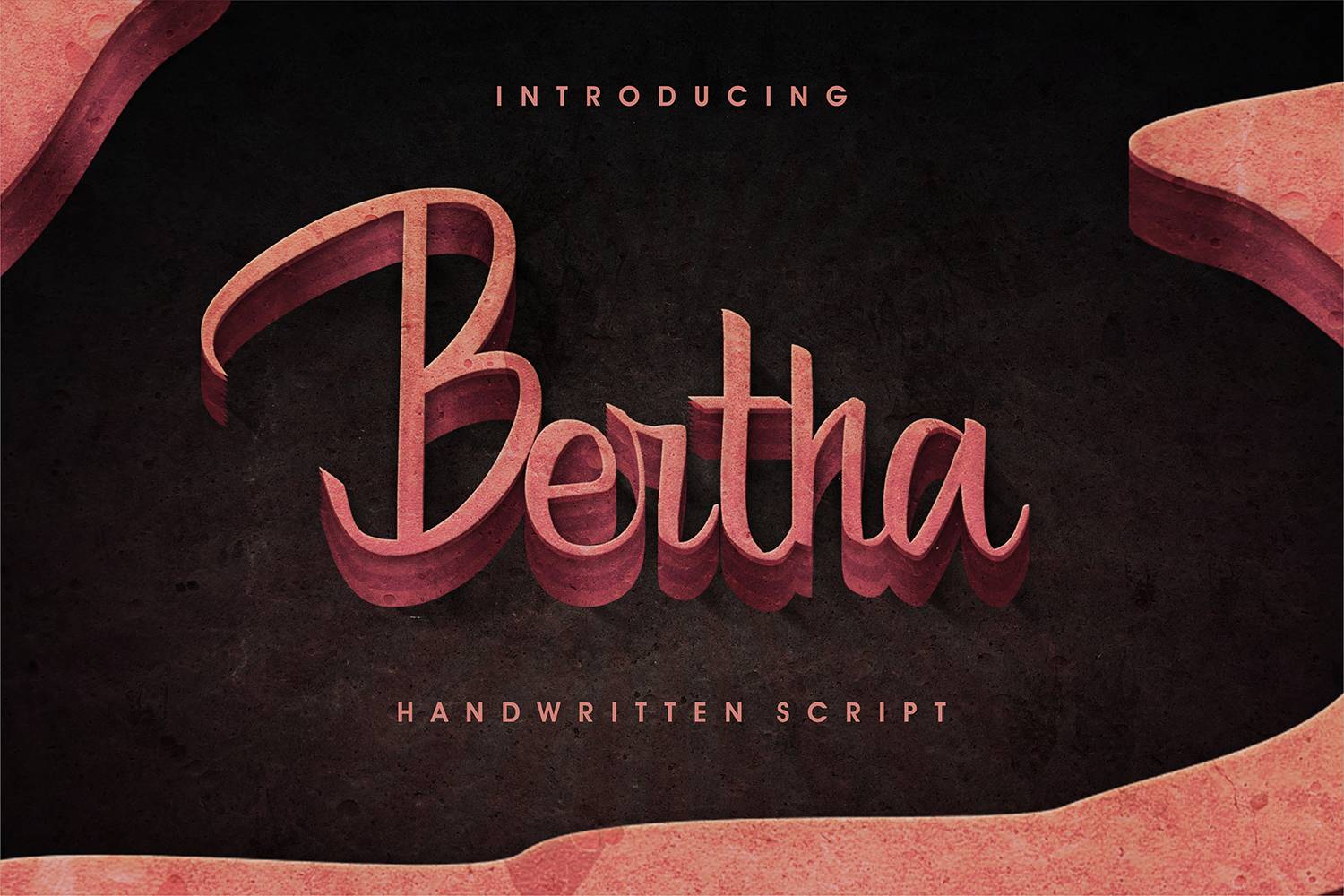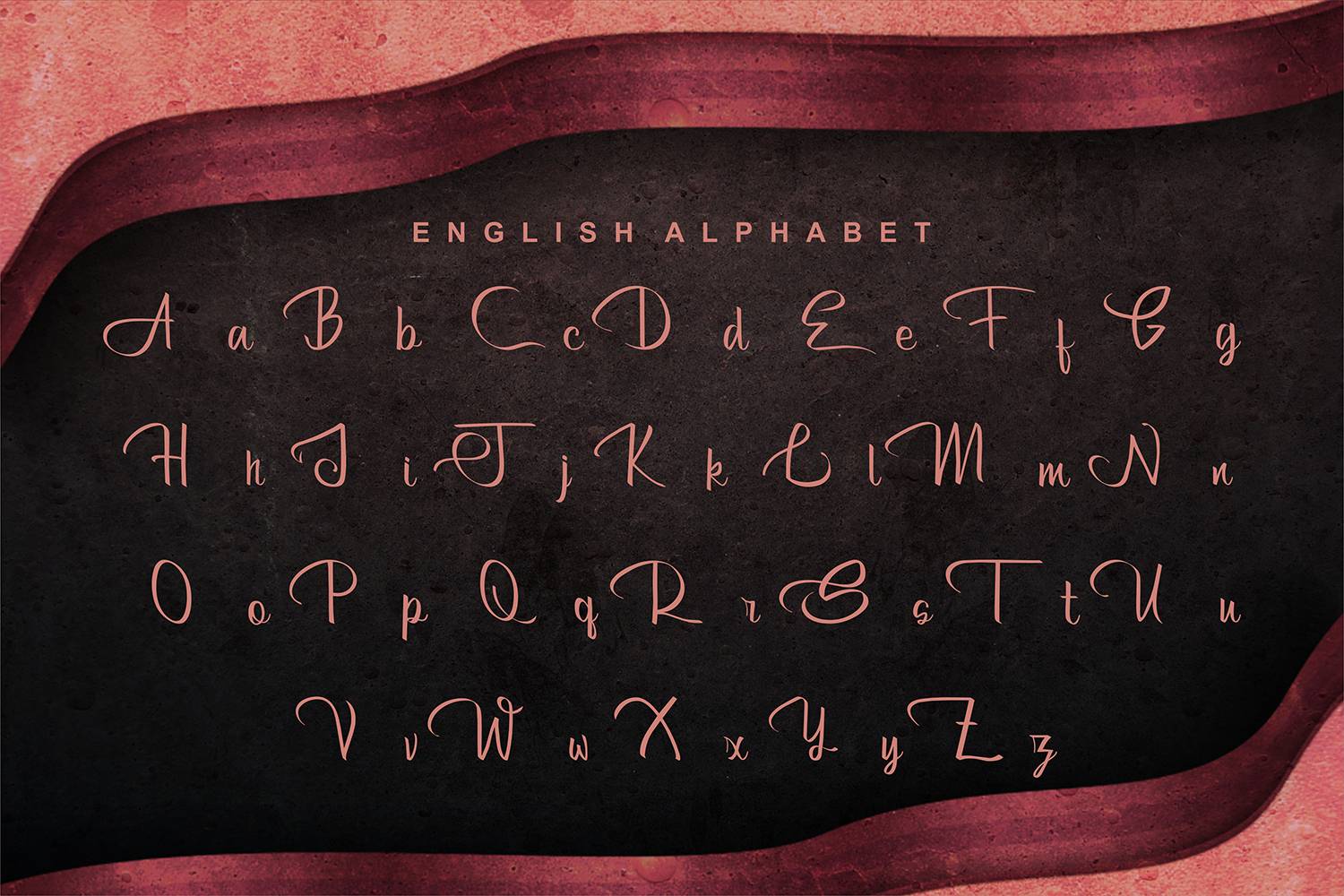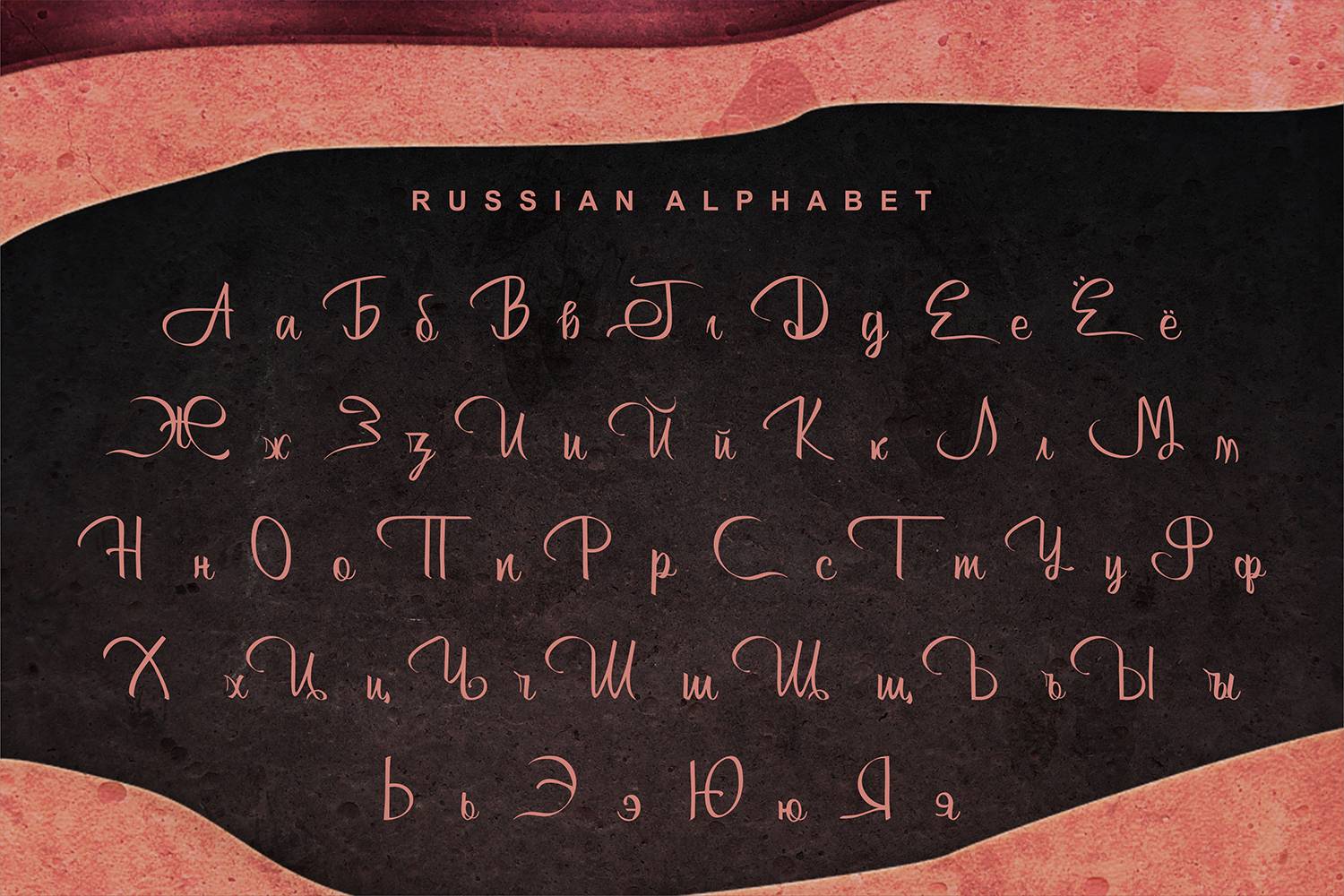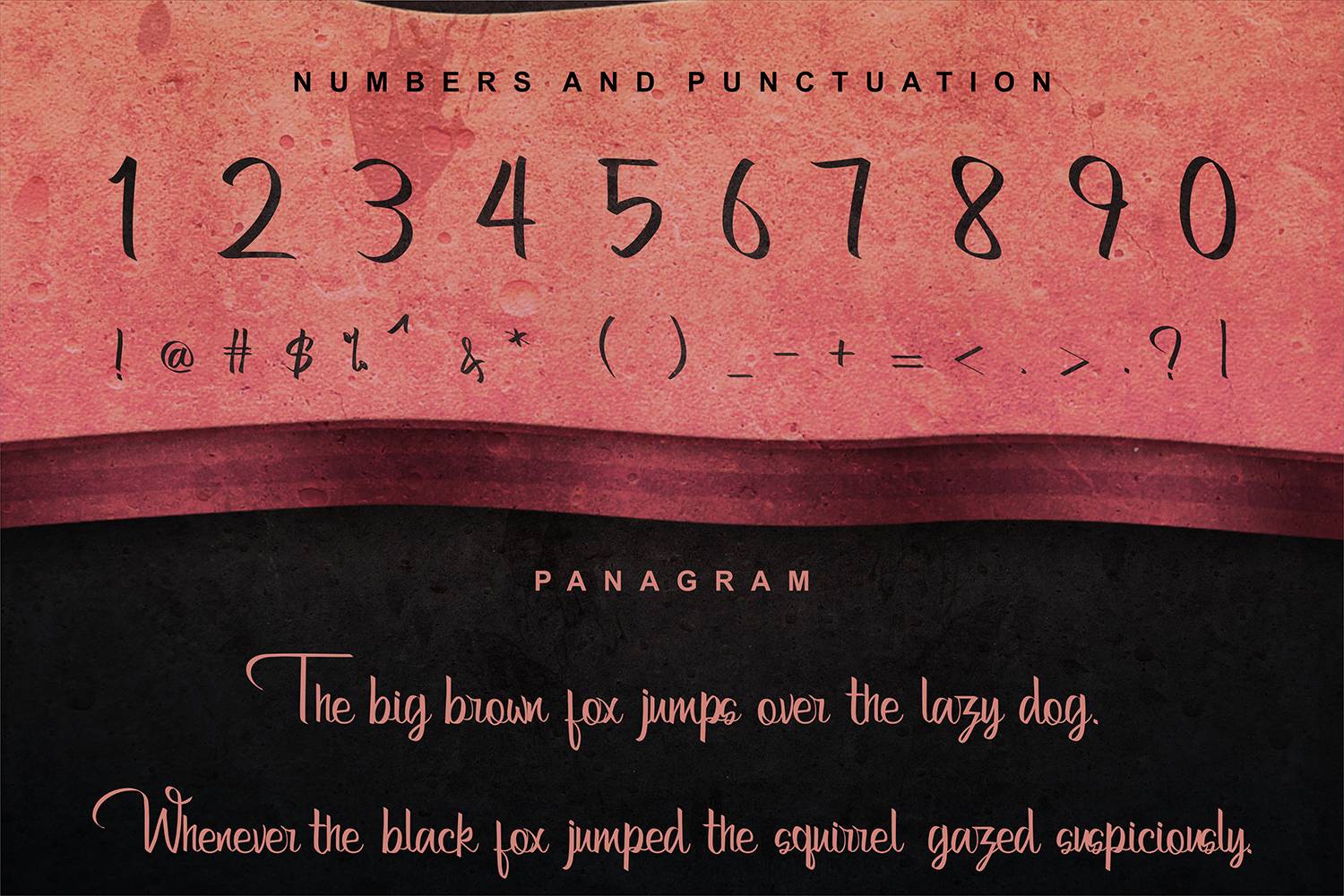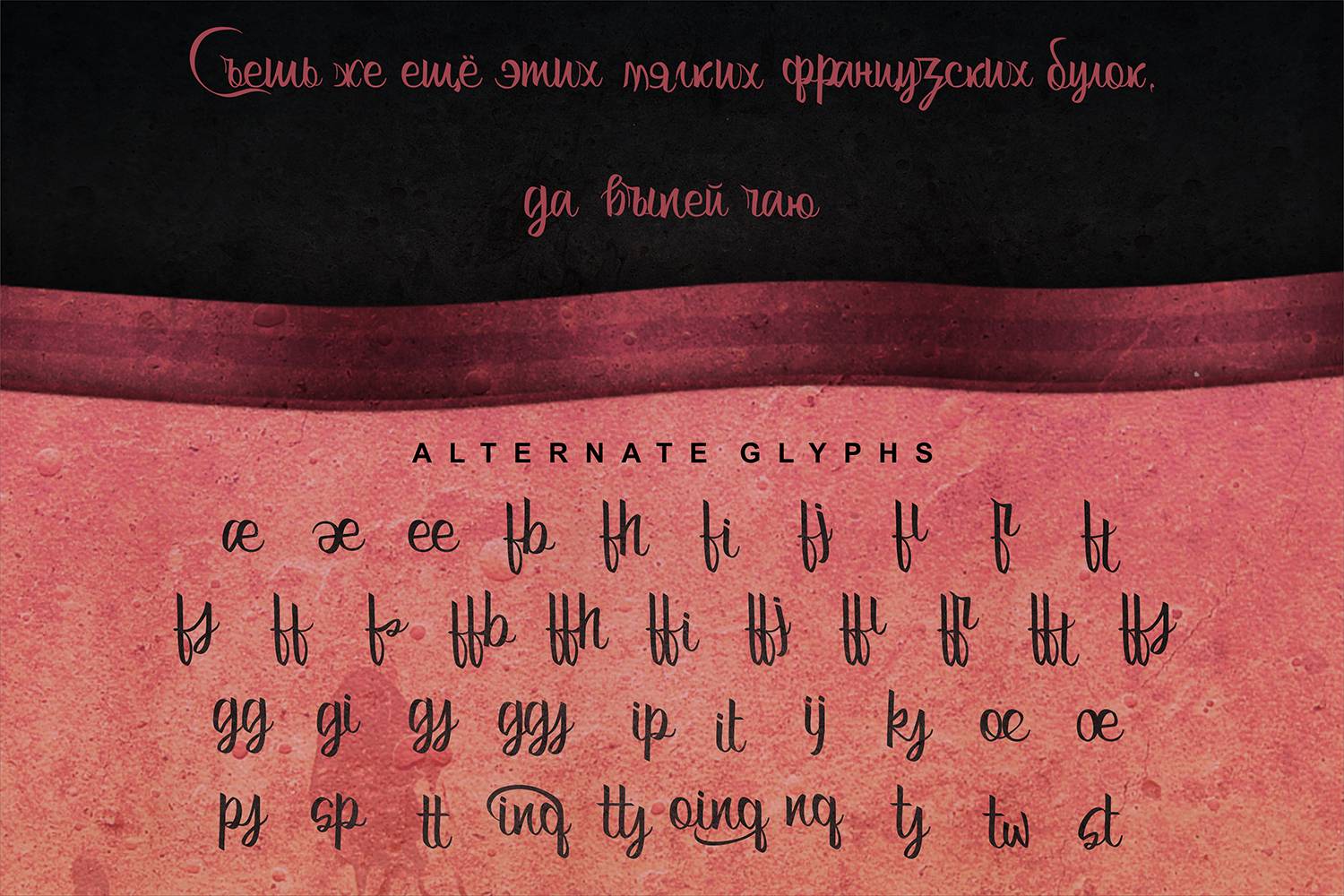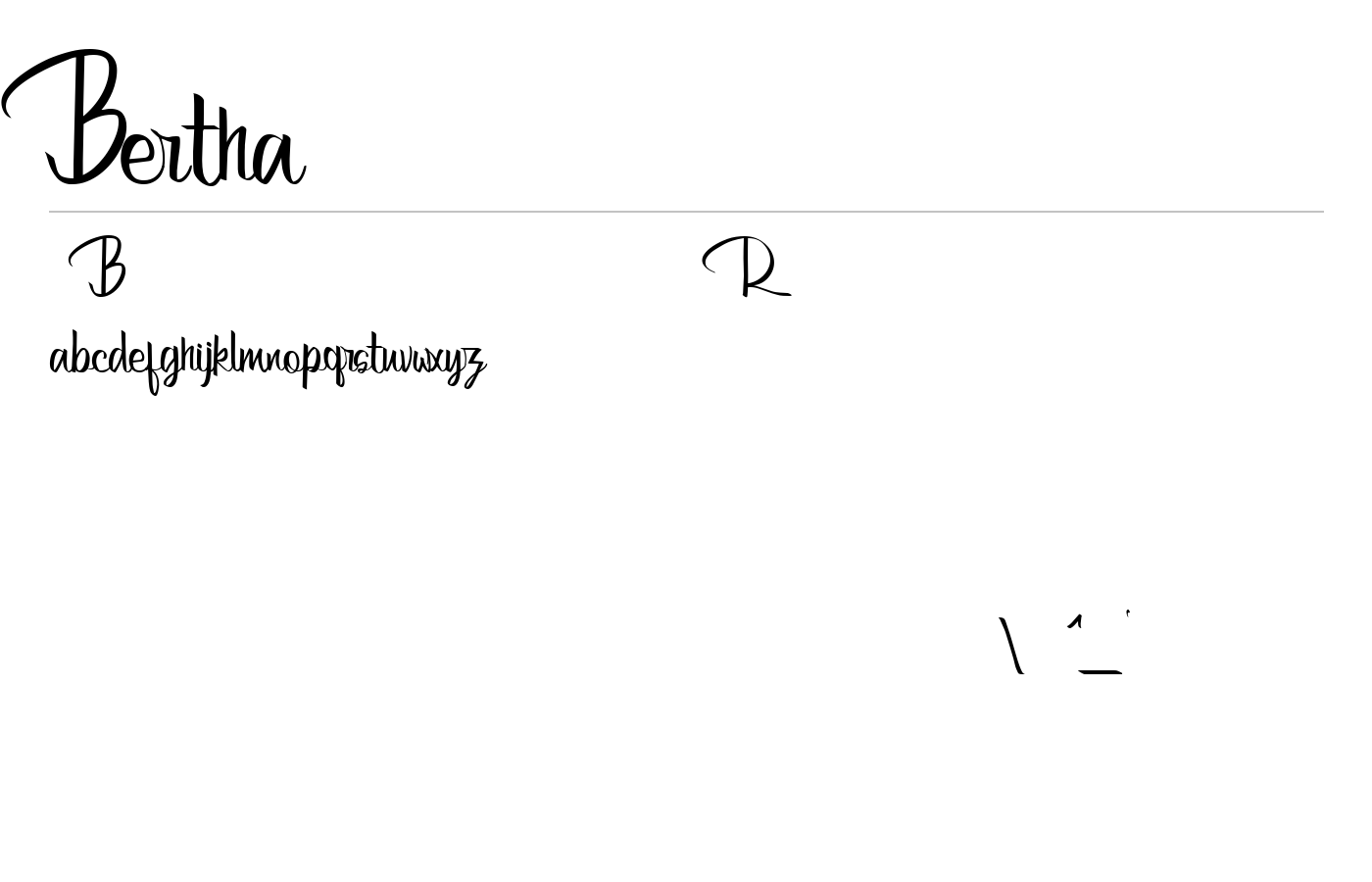
Bertha is a charming script font with a playful and elegant personality, featuring smooth, flowing strokes and a handwritten feel. Its slender, slightly condensed letterforms and whimsical curves make it a great choice for invitations, branding, and creative projects that seek a personal, artistic touch. This font works well in designs that want to convey warmth and individuality with a stylish flair.
Bertha Font
About Bertha Font